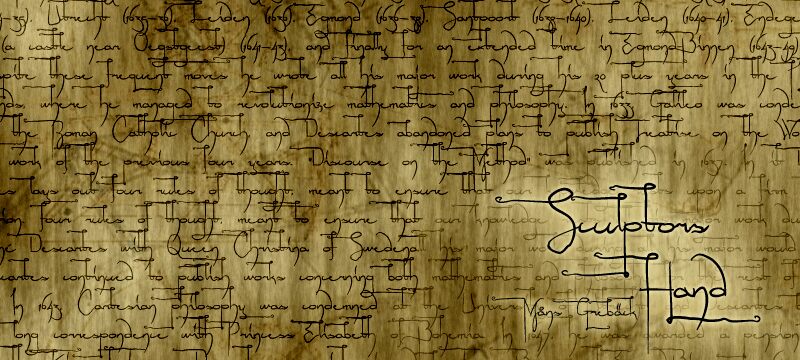
Sculptors Hand by Mans Greback is a free graffiti script with the restless linework of a quick marker tag. Its narrow letters stretch into tall loops, crossed strokes, and abrupt angles, with uneven joins and overlaps that make the writing look improvised rather than neatly penned.
Rooted in street tagging, it suits music posters, skate merchandise, and event graphics aimed at an underground crowd. The lettering feels fast and unruly. On album artwork, the loose tangles can become part of the graphic image instead of sitting apart as ordinary type. For independent fashion brands, its raw signature-like motion can shape a recognizable product identity.